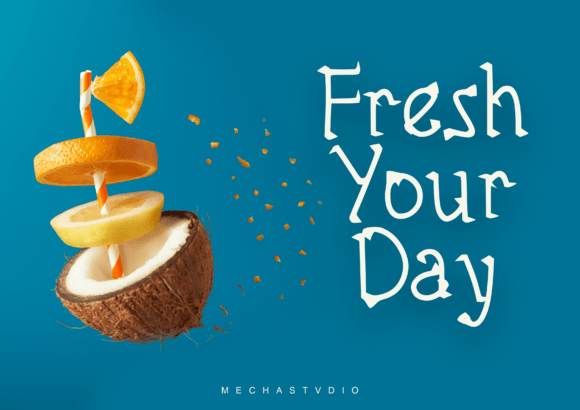
Earrings Font: The Playful and Unique Display Font for Your Creative Projects
Are you tired of using the same old fonts for your designs? Look no further! Introducing Earrings Font, a playful, simple, and unique display font that’s perfect for adding a touch of personality to your logos, branding, stationery, poster designs, social media posts, and more. With its charming and eye-catching design, Earrings Font is sure to become your go-to font in no time.
What Makes Earrings Font So Special?
Earrings Font is a display font that’s designed to make a statement. Its playful and simple design makes it perfect for use in a variety of creative projects, from logos and branding to posters and social media posts. The font’s unique and quirky style is sure to grab attention and add a touch of personality to your designs.
One of the best things about Earrings Font is its versatility. It’s perfect for use in both digital and print projects, and can be used to create a wide range of designs, from fun and playful to elegant and sophisticated. Whether you’re a designer, crafter, or DIY enthusiast, Earrings Font is a great addition to your fonts library.
If you’re looking for a font that’s perfect for logos and branding, look no further than Earrings Font. The font’s unique and playful design makes it ideal for creating memorable and eye-catching logos that will help your brand stand out. With Earrings Font, you can create a logo that’s both fun and professional, and that will help you establish a strong brand identity.
Earrings Font is also perfect for use in branding materials, such as business cards, letterheads, and packaging. The font’s simple and elegant design makes it easy to read and understand, and its playful style adds a touch of personality to your branding materials.
Great for Stationery and Poster Designs
Earrings Font is also a great choice for stationery and poster designs. The font’s playful and eye-catching design makes it perfect for creating fun and engaging stationery, such as greeting cards, invitations, and thank-you cards. And with its bold and elegant style, Earrings Font is also perfect for creating eye-catching posters that will grab attention and communicate your message effectively.
Perfect for Social Media Posts
In today’s digital age, social media is an important platform for communicating with your audience and sharing your message. Earrings Font is perfect for use in social media posts, as its playful and eye-catching design makes it ideal for grabbing attention and engaging your audience. Whether you’re creating a Facebook post, Instagram story, or Twitter tweet, Earrings Font is a great choice for adding a touch of personality to your social media content.
Why You’ll Love Earrings Font
So why will you love Earrings Font? Here are just a few reasons:
- Playful and unique design: Earrings Font has a playful and unique design that’s sure to grab attention and add a touch of personality to your designs.
- Versatile: Earrings Font is perfect for use in a wide range of creative projects, from logos and branding to posters and social media posts.
- Easy to read and understand: Despite its playful design, Earrings Font is easy to read and understand, making it perfect for use in both digital and print projects.
In conclusion, Earrings Font is a playful, simple, and unique display font that’s perfect for adding a touch of personality to your designs. With its charming and eye-catching design, Earrings Font is sure to become your go-to font in no time. Whether you’re a designer, crafter, or DIY enthusiast, Earrings Font is a great addition to your fonts library, and is perfect for use in a wide range of creative projects.